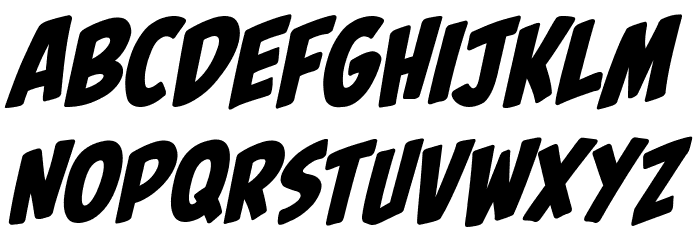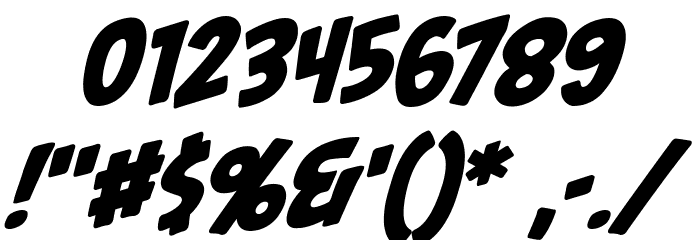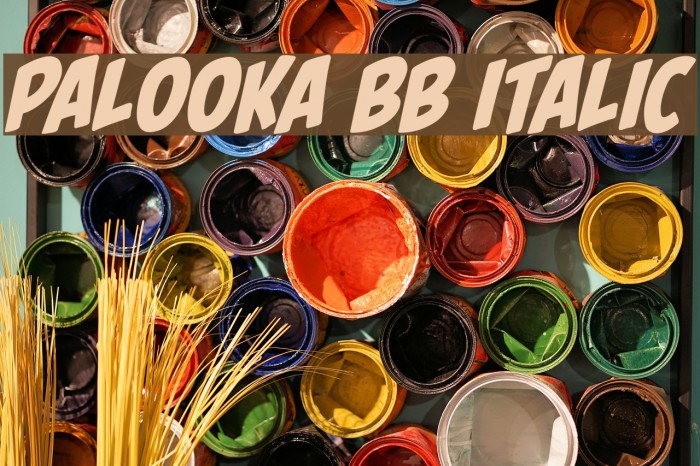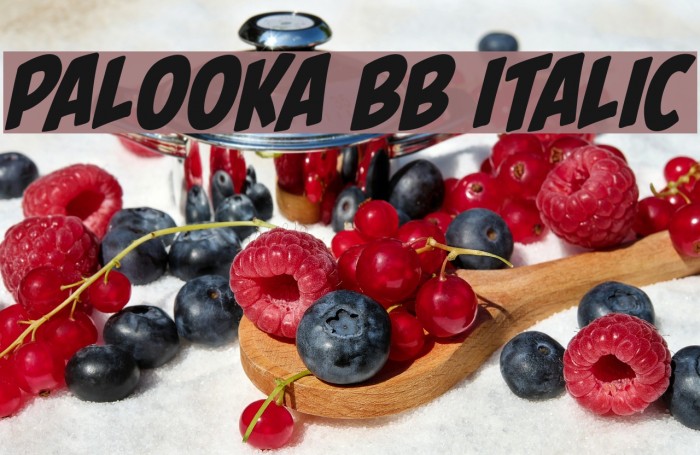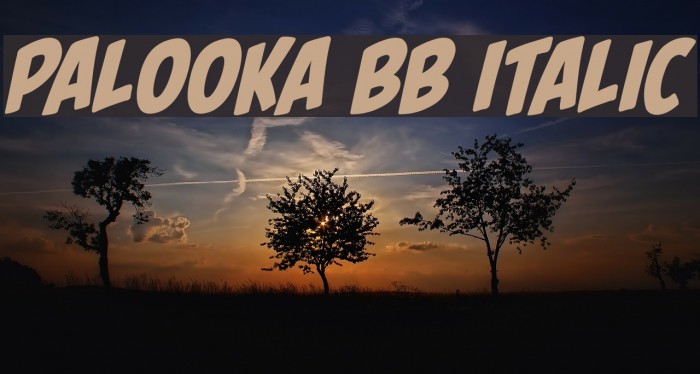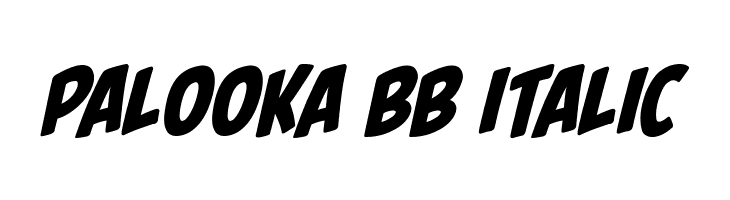
Palooka BB Italic Font
This bold and dynamic font features a strong, slanted design that exudes energy and movement. Its thick strokes and italicized style give it a sense of urgency and flair, making it ideal for attention-grabbing headlines and impactful designs. The characters are tightly spaced, enhancing its bold presence and ensuring that each letter stands out prominently. The font's high contrast in stroke thickness adds to its dramatic appearance, while the overall style is modern and expressive. Its unique character makes it suitable for projects that require a bold statement, such as posters, advertisements, and branding materials.
A bold, italicized font with strong, dynamic strokes and high contrast.
- Proposed Projects: Ideal for posters, advertisements, branding materials, and any design needing a bold statement.
- Character Spacing: Tight